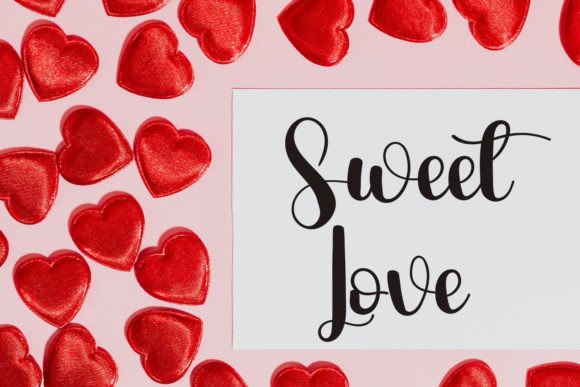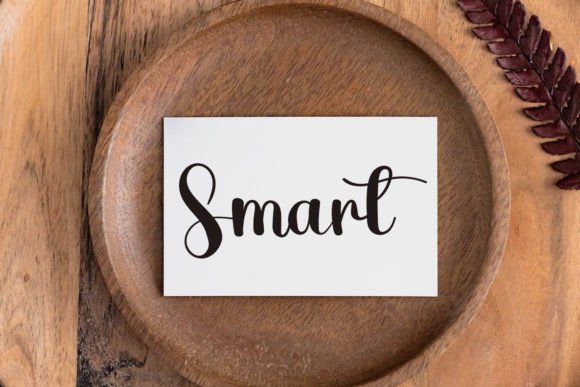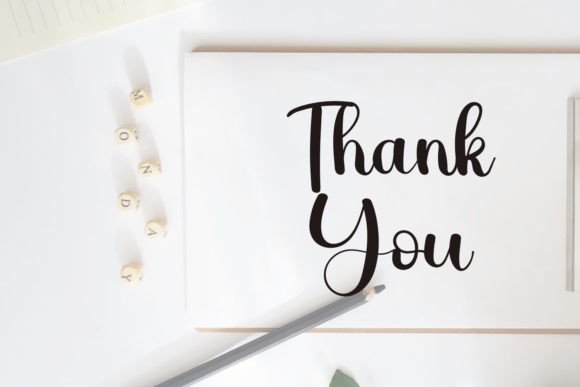
Introducing Autography Font: Elevate Your Designs with Elegance and Simplicity
In the world of design, the right font can make all the difference. Whether you’re crafting a stunning YouTube banner, a captivating cover logo mockup, a beautiful wedding invitation, an ID card, or a vibrant flyer, the font you choose sets the tone for your entire design. This is where Autography Font comes into play – a fresh, beautiful, and versatile font that can elevate your designs to new heights. In this article, we’ll explore the features and benefits of Autography Font, and why it’s becoming a favorite among designers and crafters alike.
What is Autography Font?
Autography Font is a modern, elegant, and simple font designed to meet the diverse needs of designers and crafters. Its unique style makes it perfect for a wide range of applications, from digital designs like YouTube banners and social media graphics to print materials such as wedding invitations, ID cards, and flyers. The font’s clean lines, beautiful curves, and unique characteristics make it stand out in any design.
Key Features of Autography Font
- Fresh and Beautiful Design: Autography Font boasts a contemporary design that is both fresh and beautiful, making it perfect for designers looking for a modern touch.
- Versatility: This font is incredibly versatile, suitable for various design purposes including YouTube banners, cover logo mockups, wedding invitations, ID cards, flyers, and crafts.
- Simplicity and Uniqueness: Despite its simplicity, Autography Font has a unique charm that sets it apart from other fonts, making your designs memorable.
- Ease of Use: Designed to be user-friendly, Autography Font can be easily integrated into your designs, regardless of your proficiency level.
Benefits of Using Autography Font
By incorporating Autography Font into your designs, you can enjoy several benefits that can contribute to the success and development of your business or personal projects.
- Professional Look: The font’s elegant design can give your projects a professional look, enhancing your credibility and appeal to your audience.
- Enhanced Creativity: With Autography Font, you can explore a wide range of creative possibilities, from elegant and sophisticated designs to more playful and vibrant ones.
- Time-Saving: The versatility and ease of use of Autography Font can save you time, allowing you to focus on other aspects of your project.
- Competitive Edge: Using a unique and high-quality font like Autography can give you a competitive edge, setting your designs apart from others.
How to Use Autography Font in Your Designs